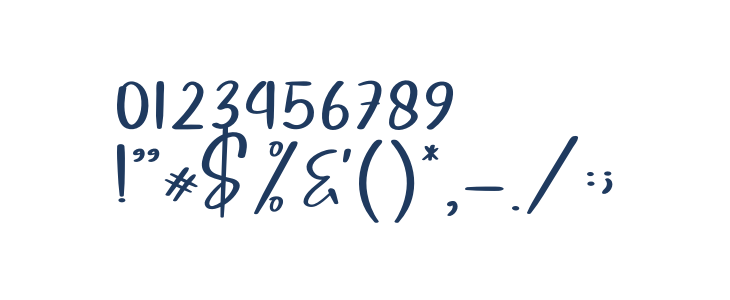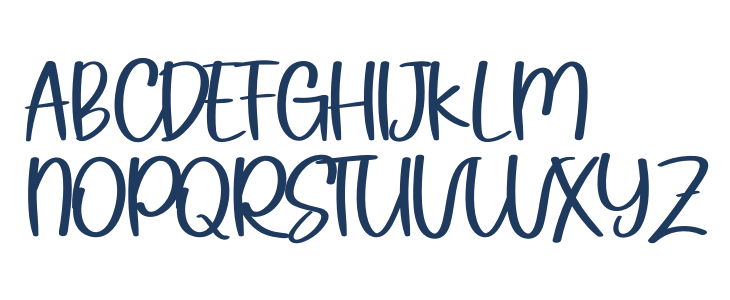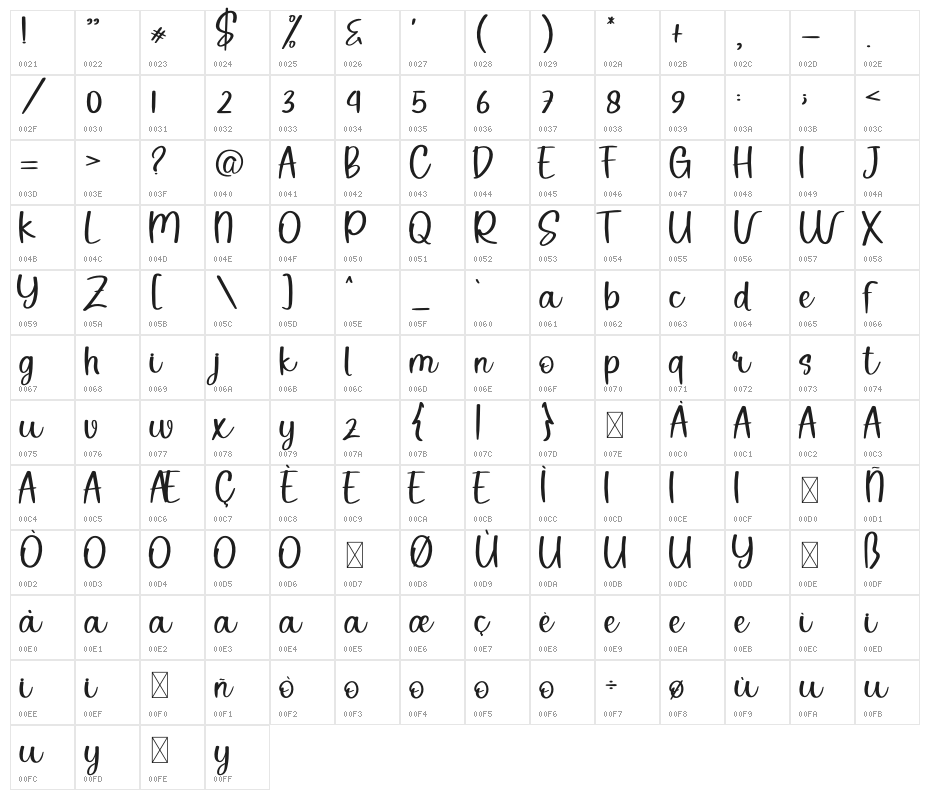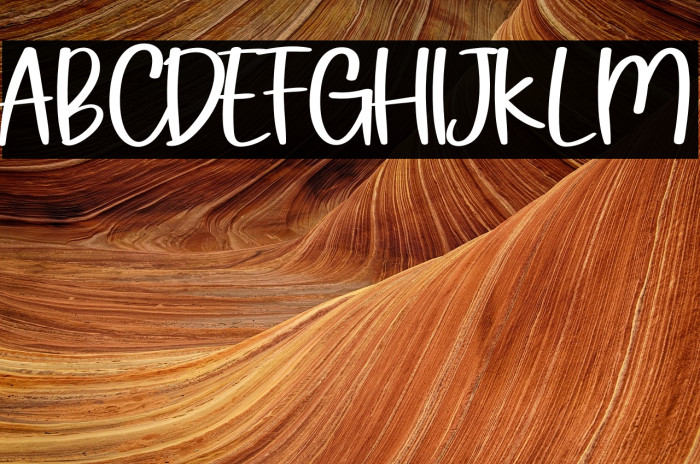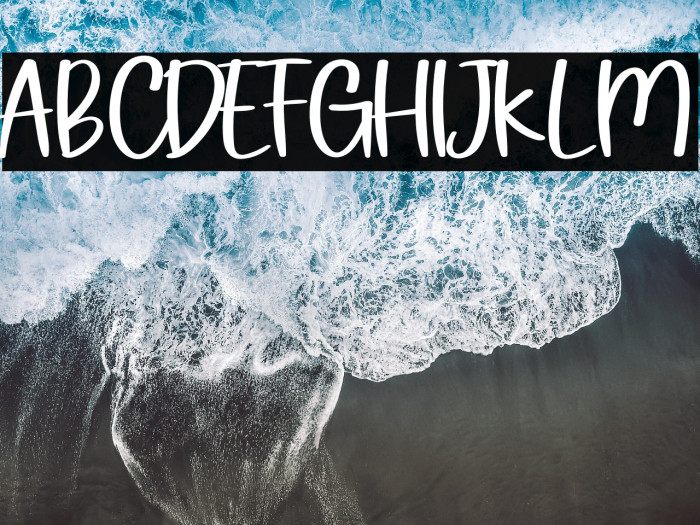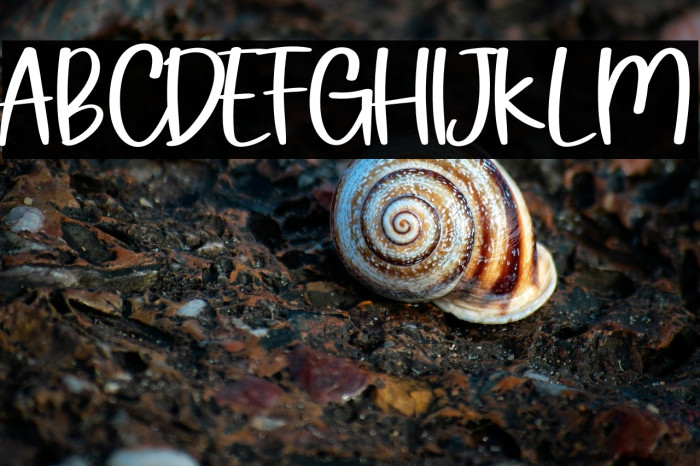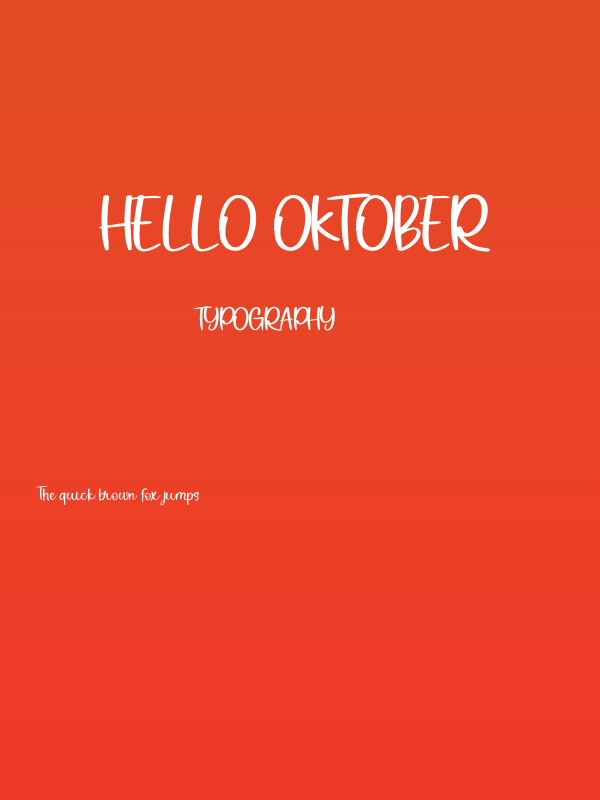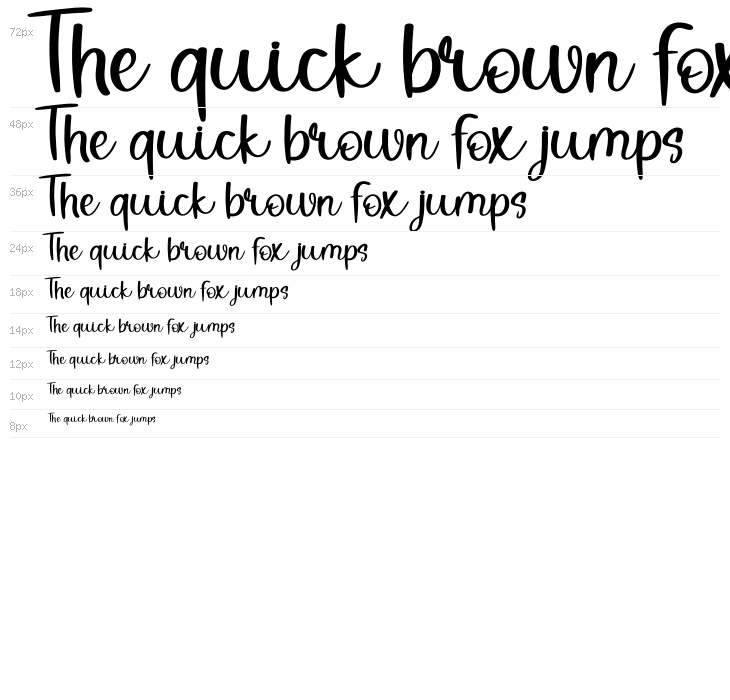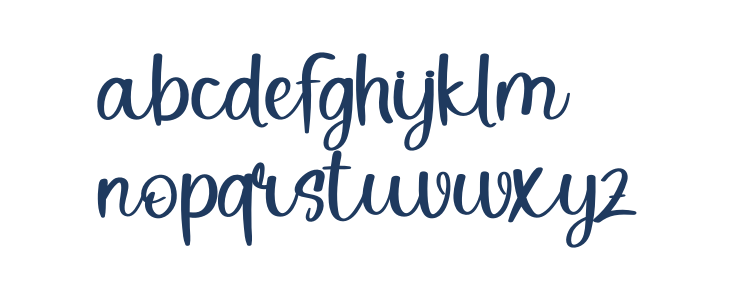
Hello Oktober Font
Hello Oktober Description
A playful, handwritten script font with smooth, rounded strokes and a casual, friendly appearance. The characters are slightly slanted, with varying stroke thickness and open counters, giving it an informal and approachable feel.
| Overall Style | Decorative, Playful, Modern |
| Use Case | Headlines, Logos, Invitations, Posters |
| Proposed Projects | Greeting cards, invitations, posters, branding for creative businesses, social media graphics. |